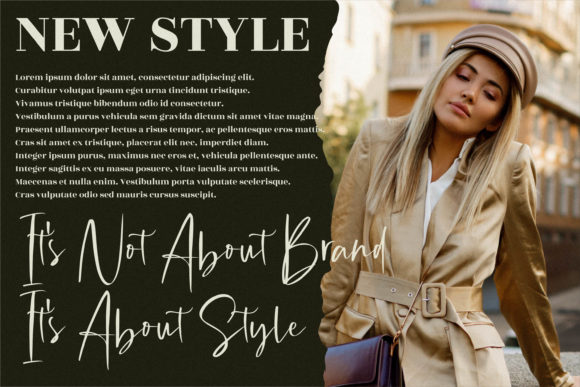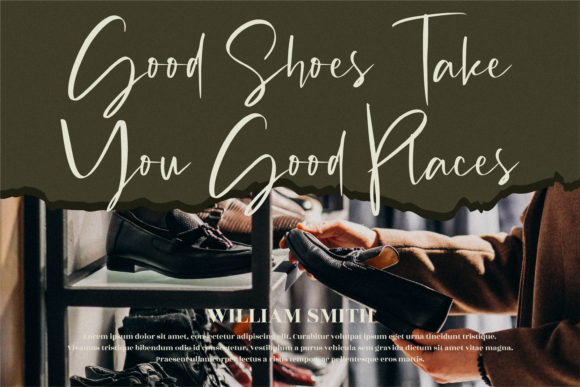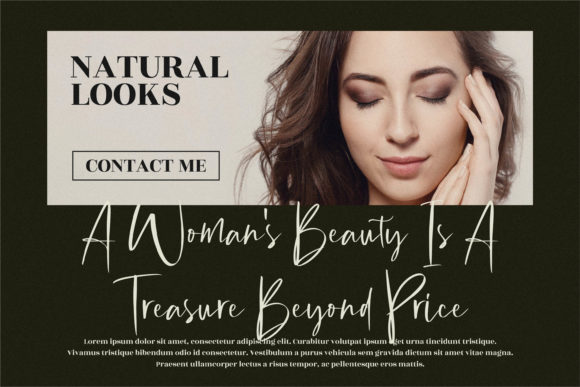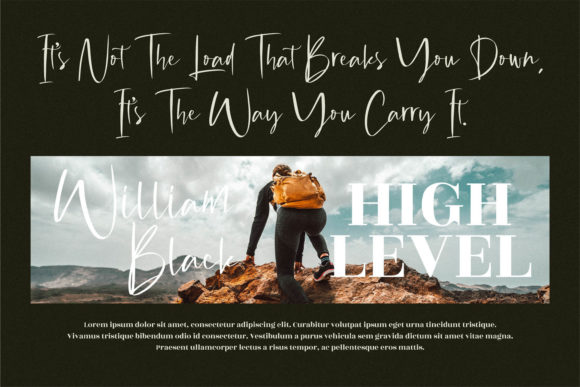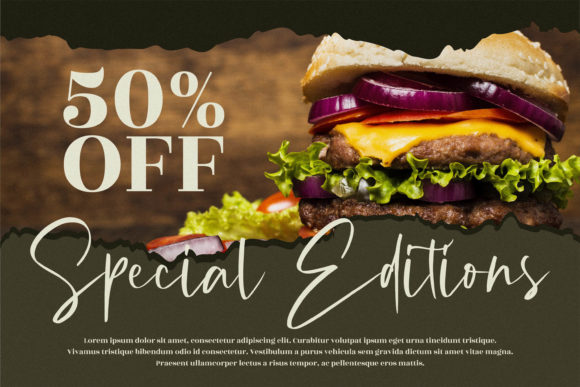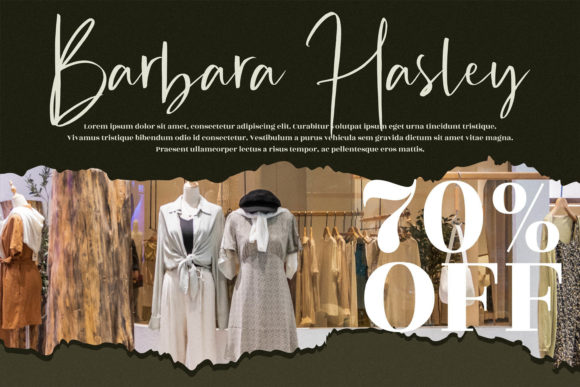
Introduction to Michigan Custom Font
Michigan Custom is a thin lettered and stylish script font.
Michigan Custom Font offers exceptional quality and versatility, making it a valuable addition to your design toolkit. Whether you’re creating for personal projects or commercial use, Michigan Custom Font delivers professional results.